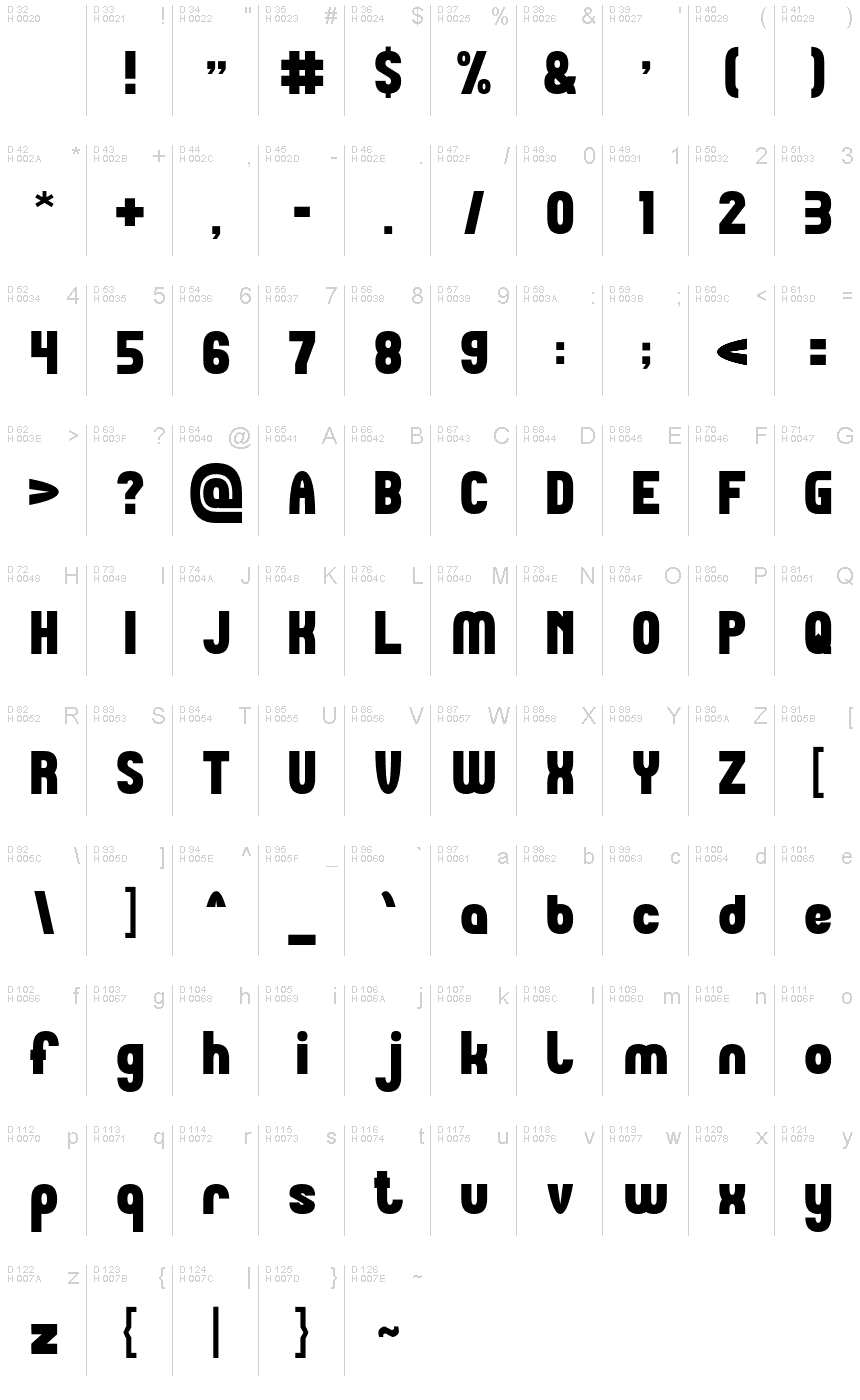
MICRO POP
Micro Pop, a bold sans serif font by Weknow, brings a modern and captivating touch to your design projects. Its semi-condensed width adds a sleek and streamlined look, perfect for branding, logos, headlines, and packaging. Whether you're creating edgy urban designs or contemporary websites, Micro Pop will make your text stand out with its clean lines and strong presence. This versatile typeface is also well-suited for social media graphics, posters, and eye-catching signage. With Micro Pop at your fingertips, elevate your projects to the next level of sophistication and style.